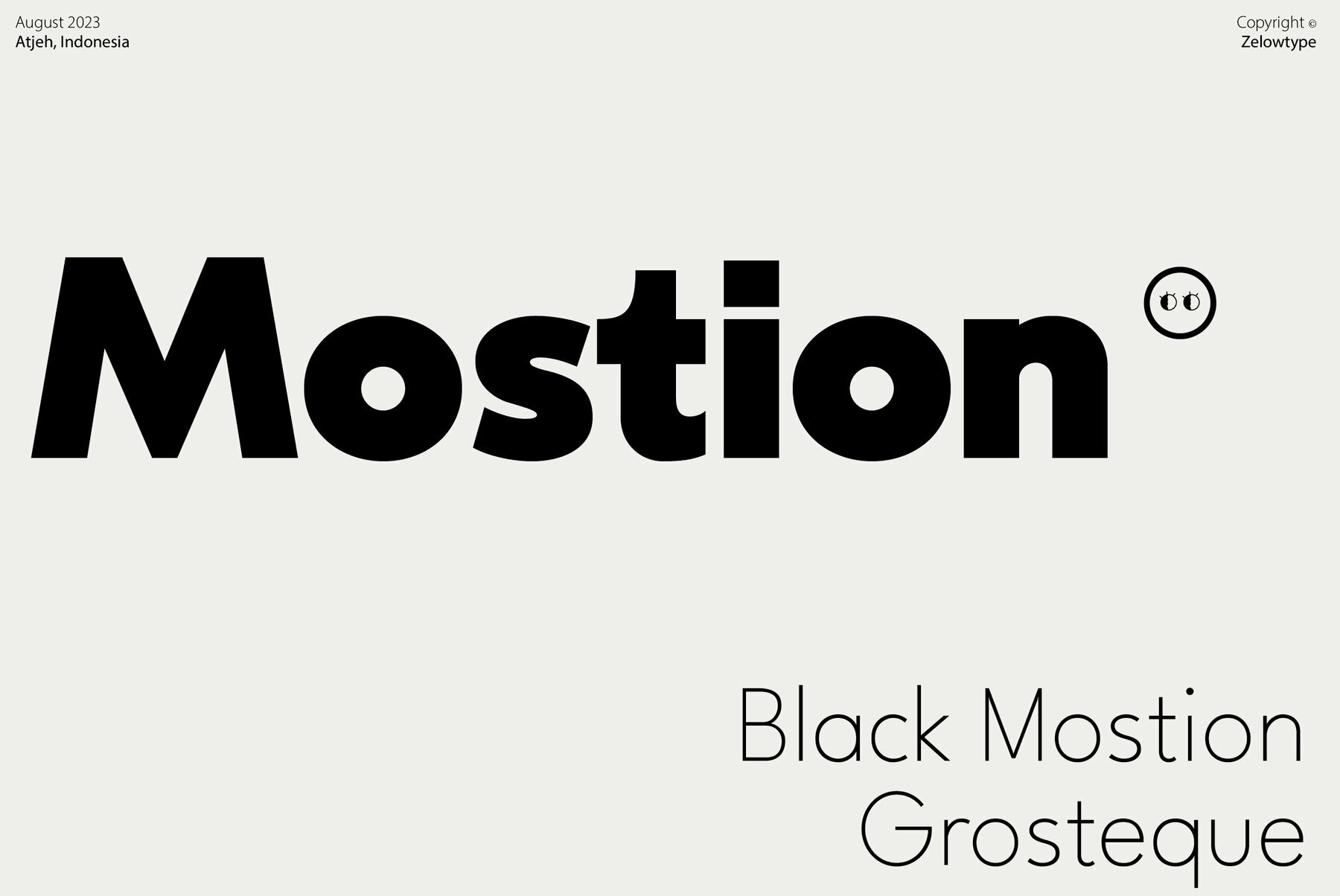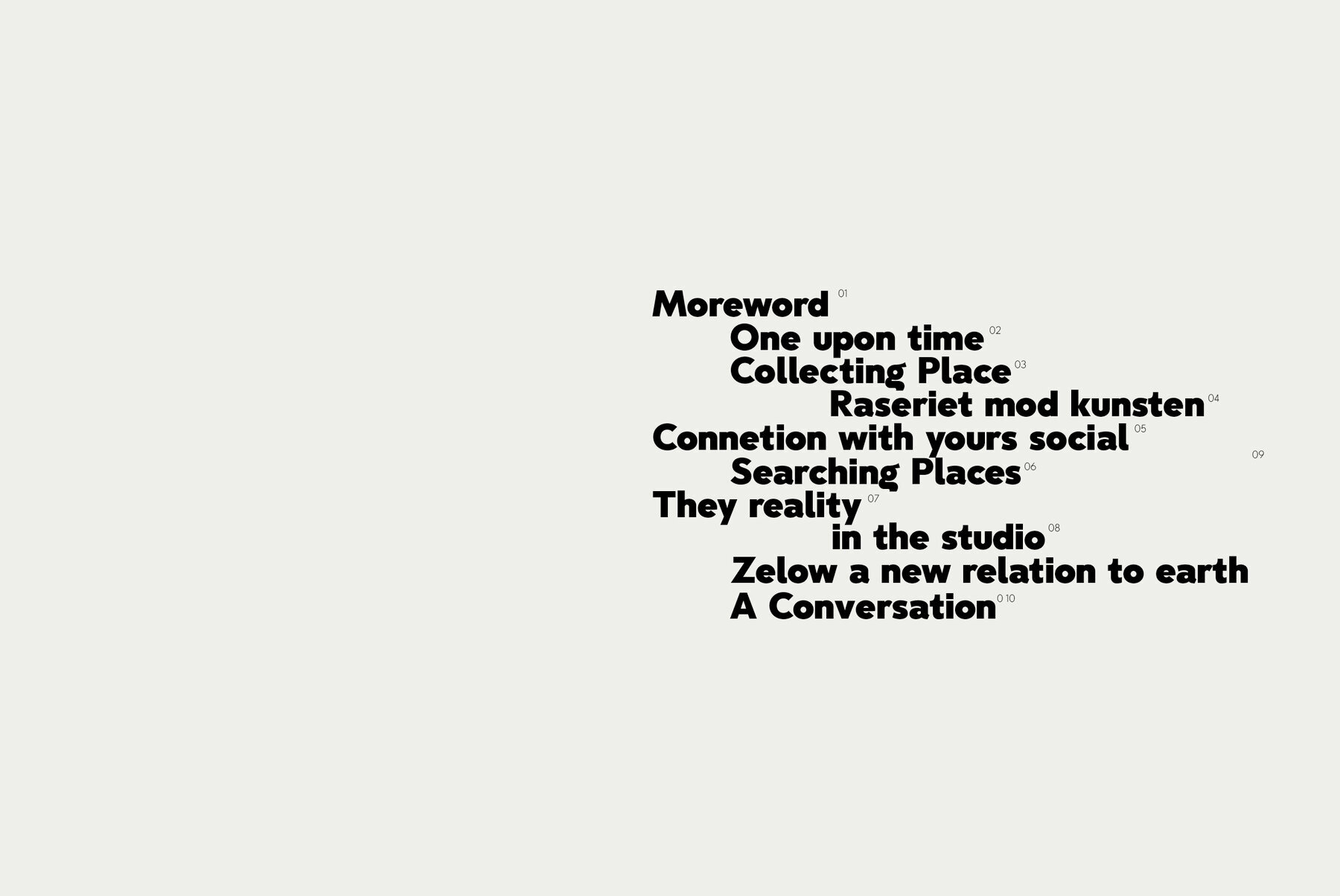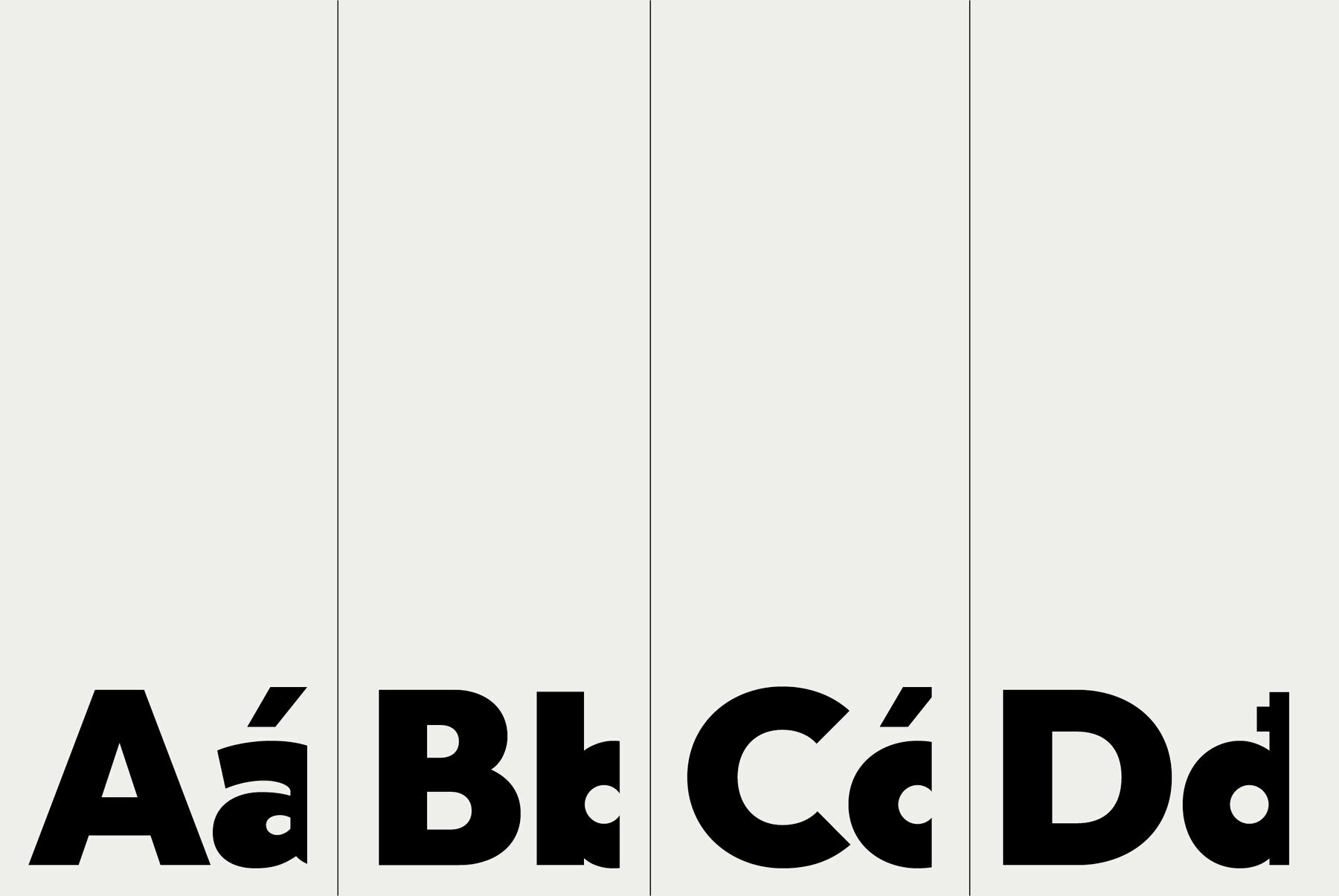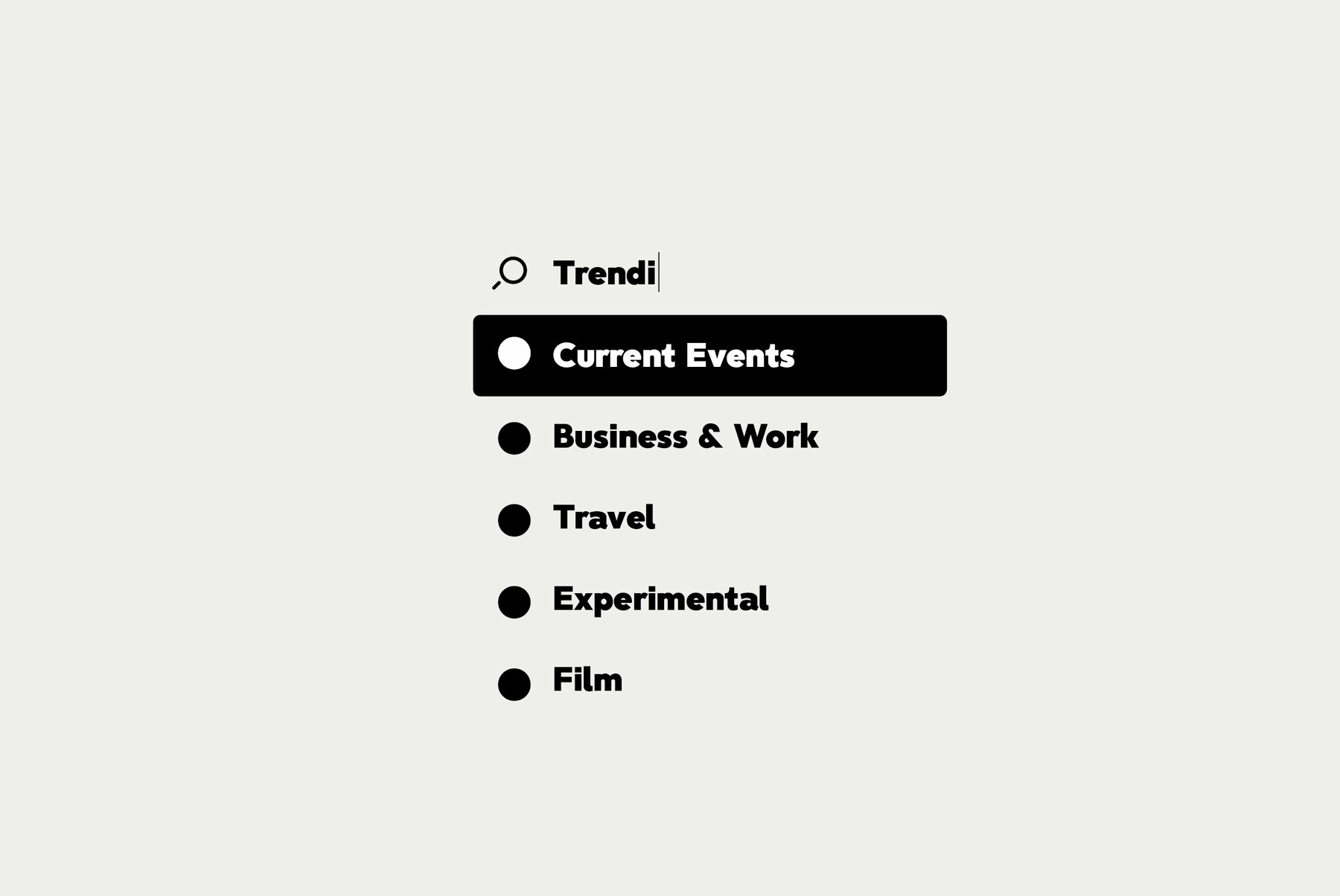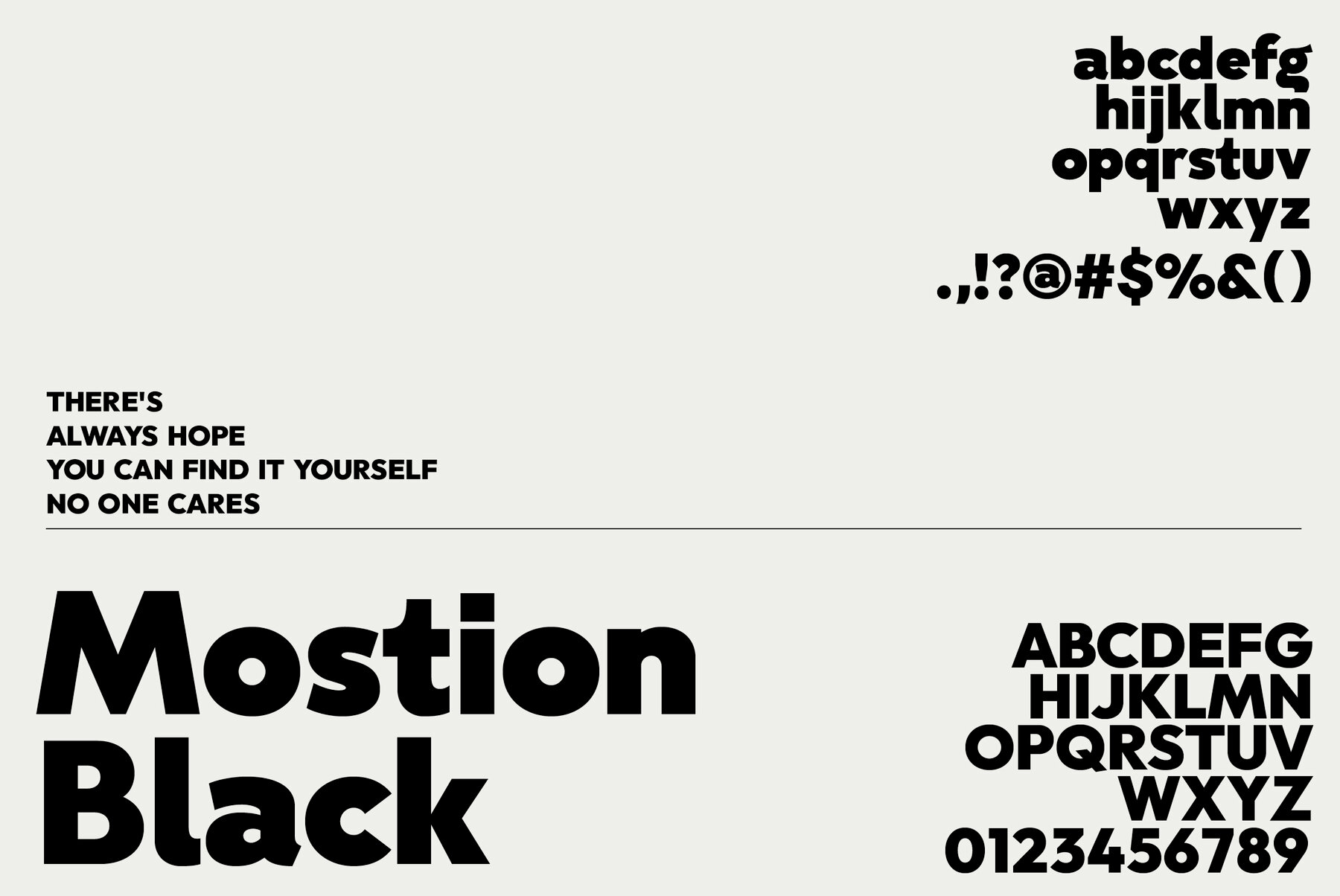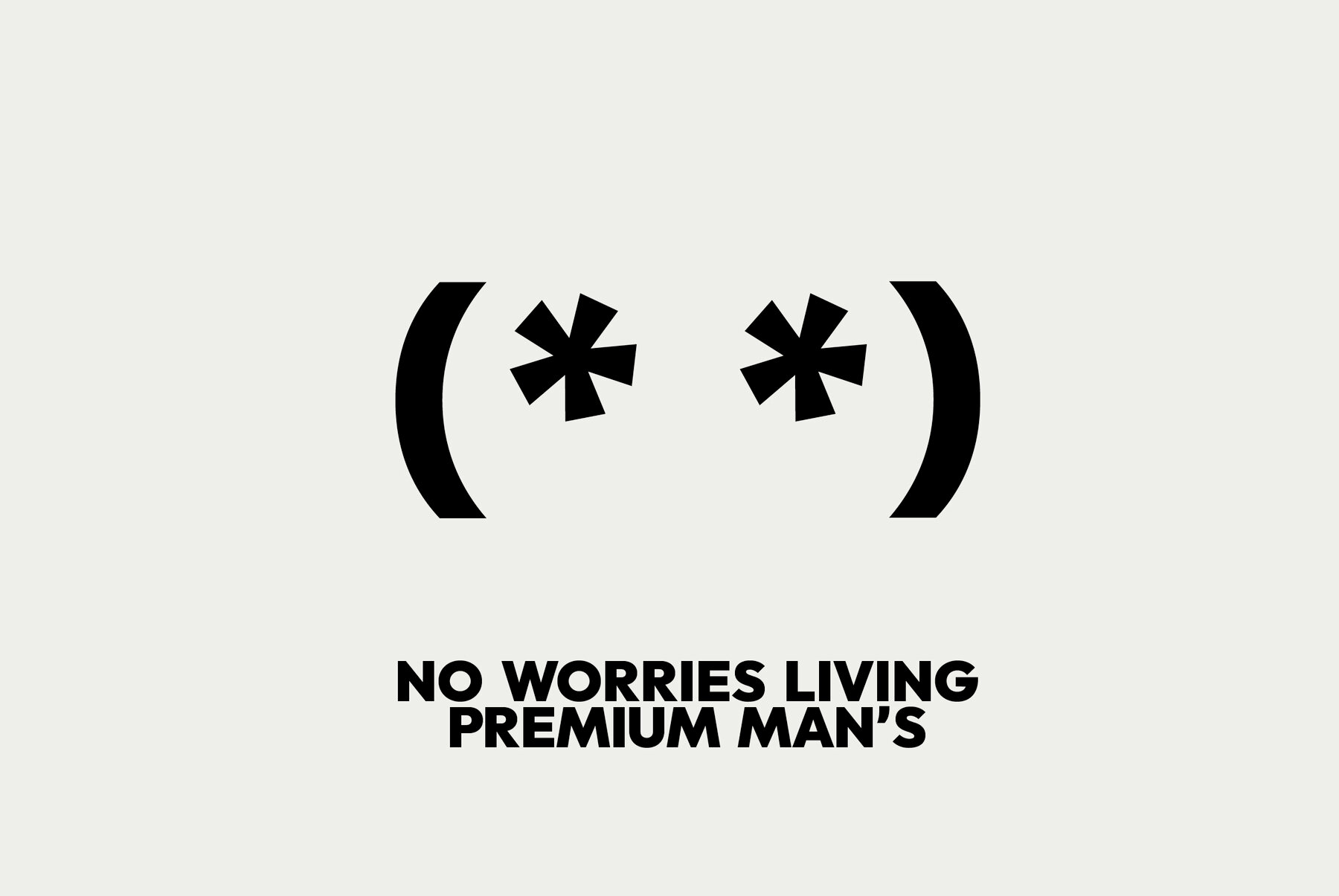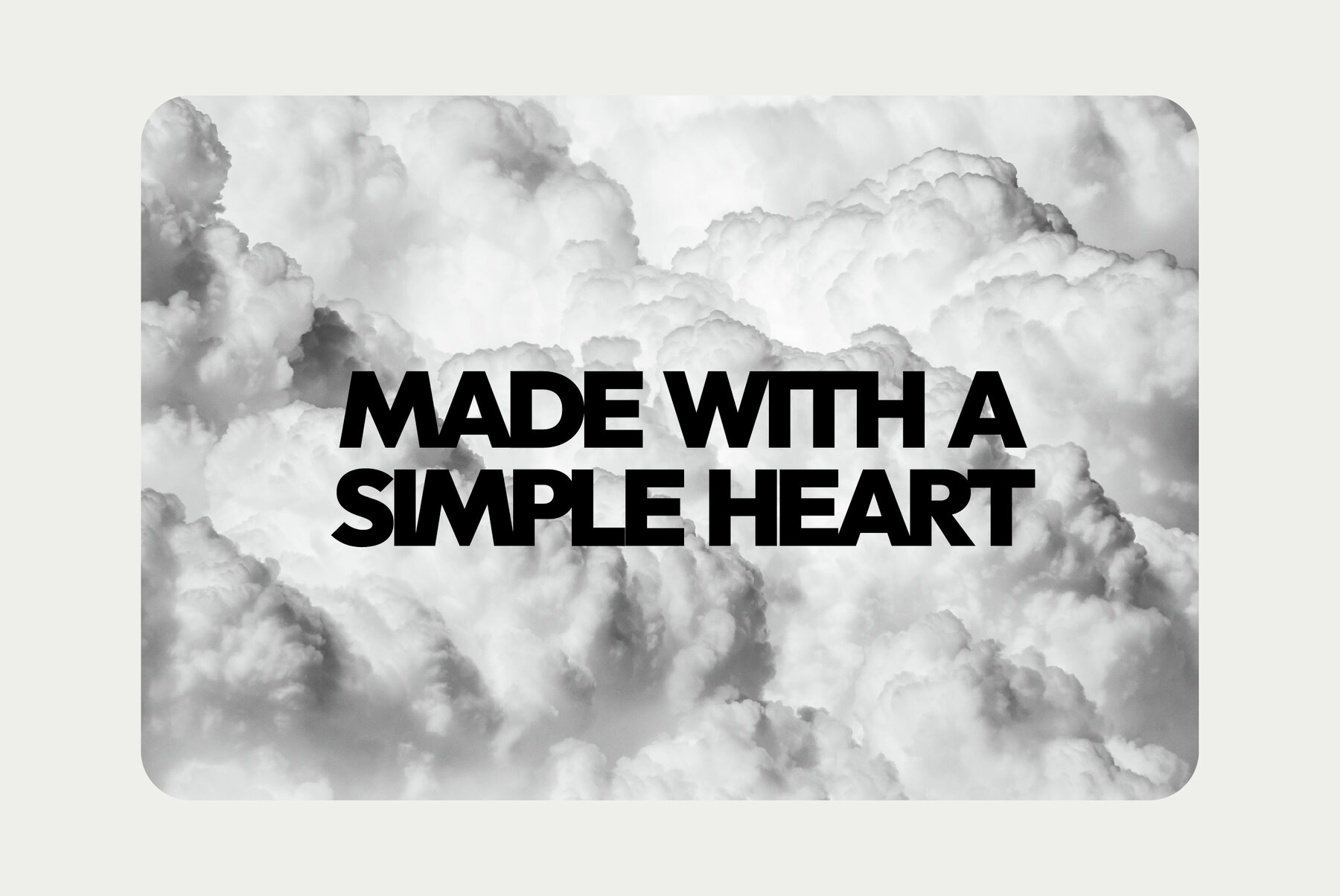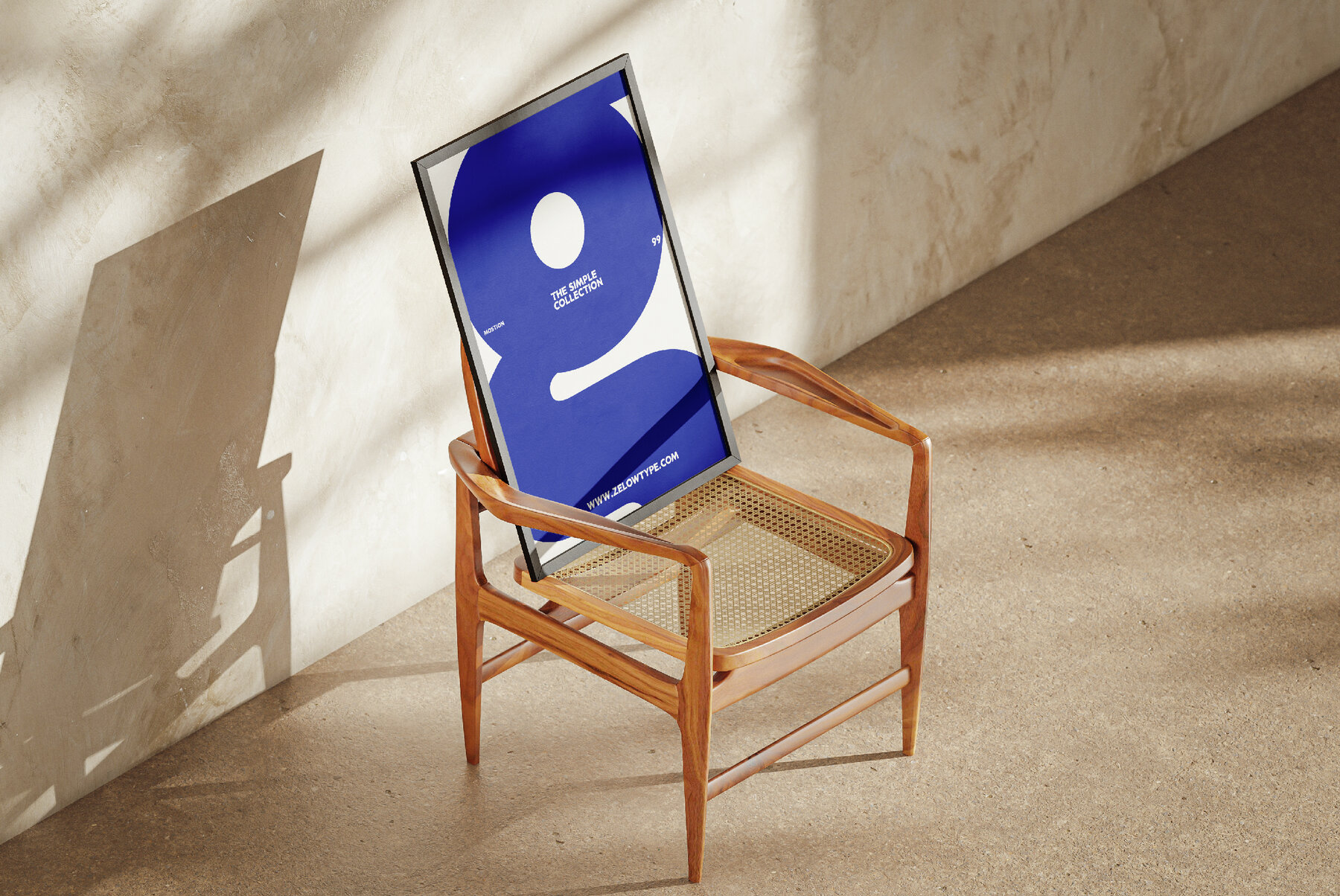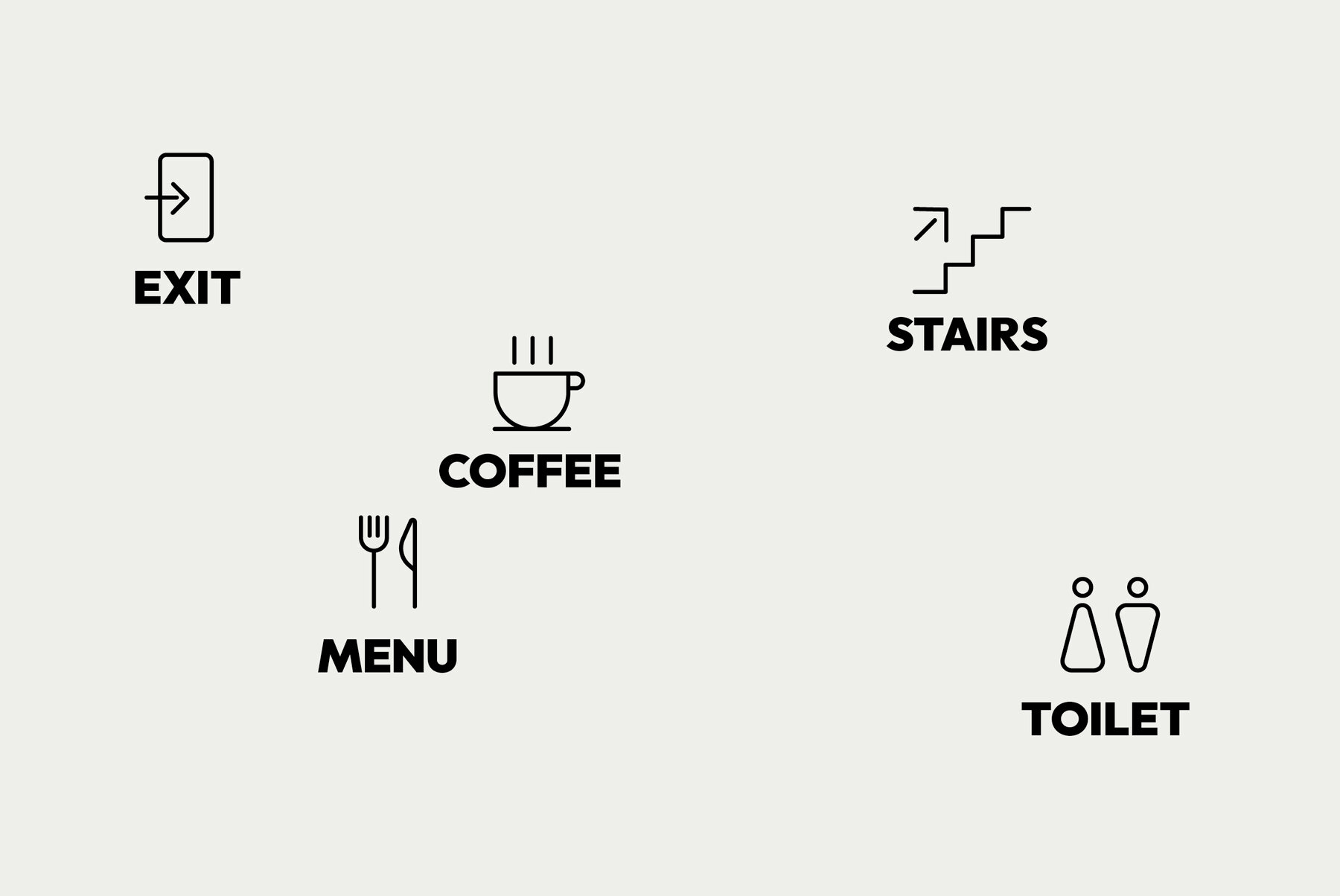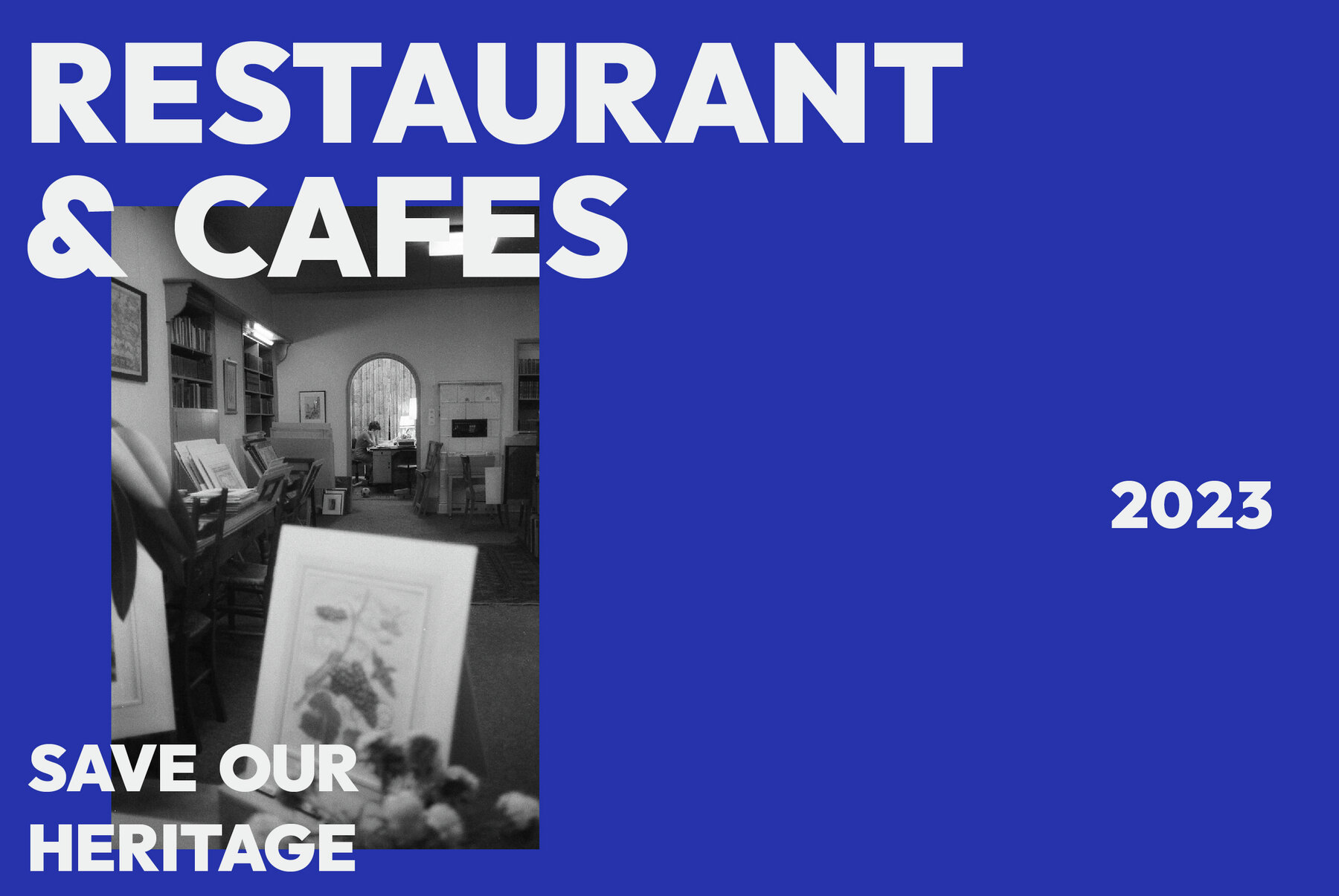
ZT Mostion Font
ZT Mostion Black
ZT Mostion Black Grotesque
Introducing ZT Monstion, a fusion of sans and grotesque styles, both in bold weight, radiating an essence of simplicity and modernism. Crafted meticulously, this typeface embodies the purity of sans-serif aesthetics while embracing the boldness of grotesque forms. Its carefully refined x-height and expertly smoothed angles create a mesmerizing balance, where minimalistic design meets commanding boldness. With each character empowered by the weighty black typography. ZT Monstion opens a window to a bright future, delivering your message with unwavering clarity and a touch of human charm. Perfect for projects that demand simplicity with a contemporary edge, from striking headlines to sleek product presentations, ZT Monstion stands ready to amplify your message, inviting you to join an elegant yet resolute typographic revolution.